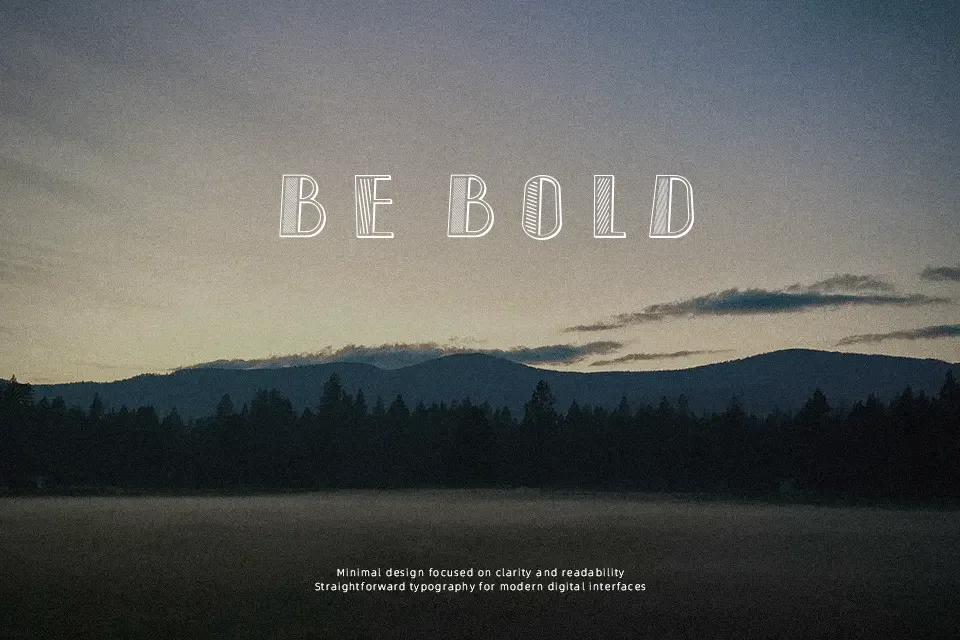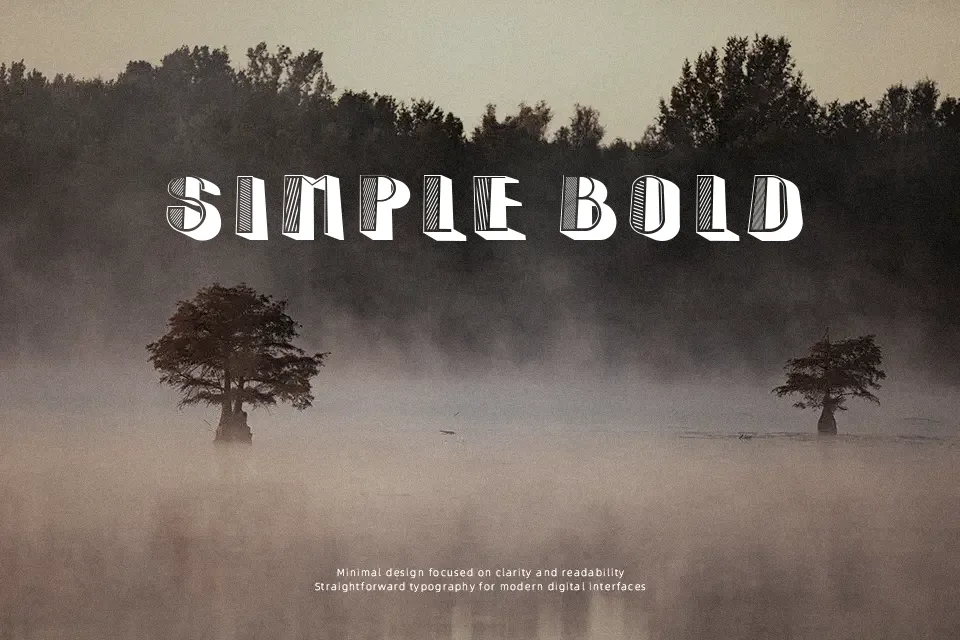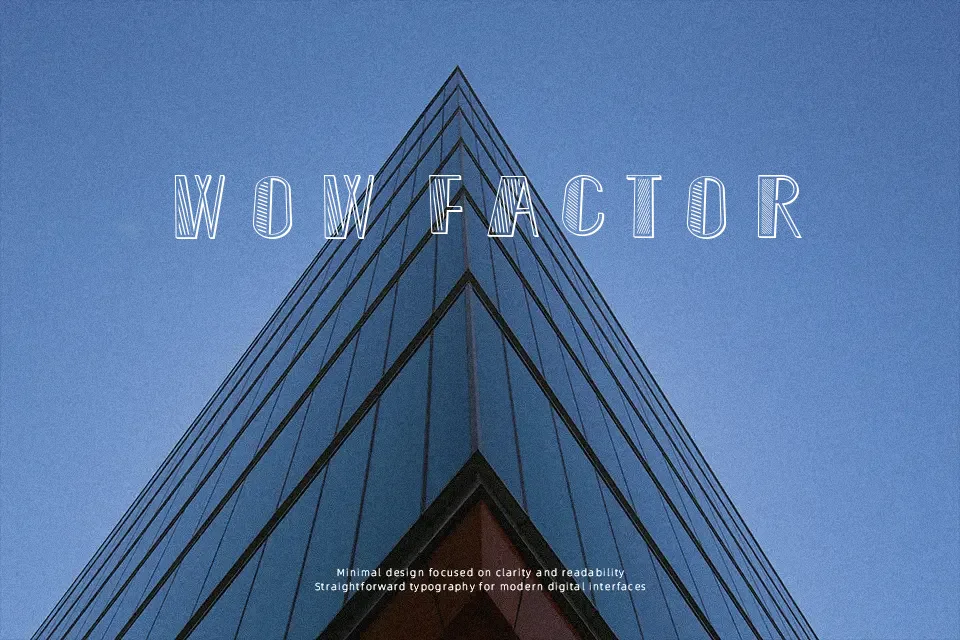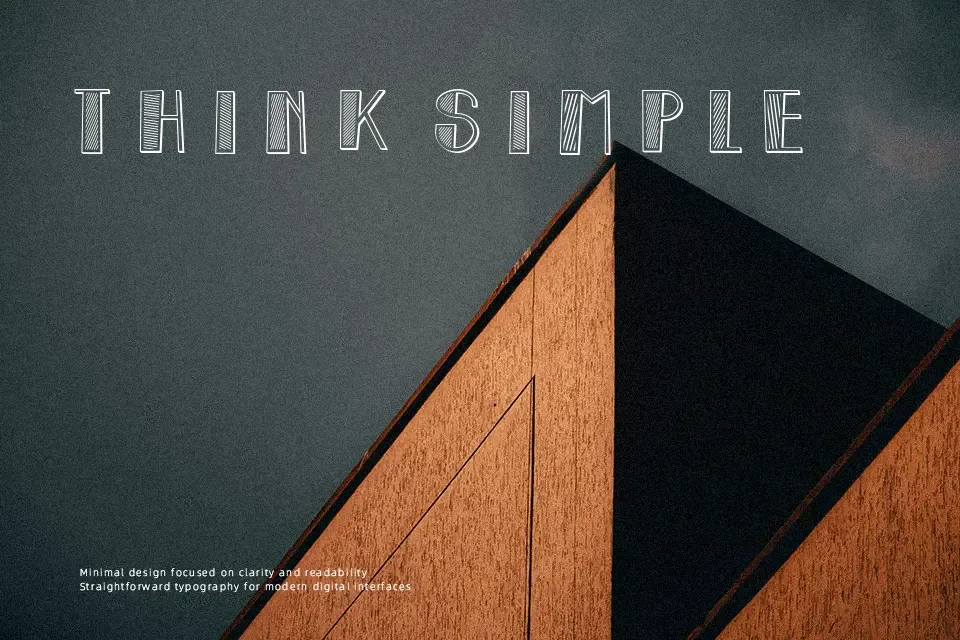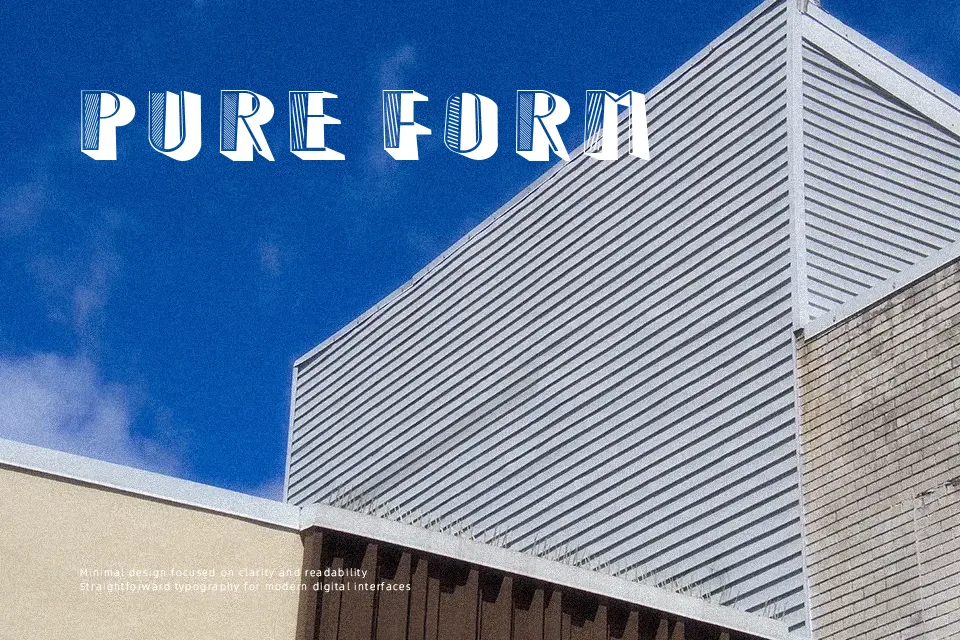
Baby Freedom Font
This font builds its personality around heavy, blocky letterforms with a subtle textured fill and a pronounced three-dimensional extrusion, giving each character a chunky, almost toy-like presence. The spacing is reasonably open for a display face, so short words and names remain legible even when tightly composed in logos or poster titles. Its overall feel lands between retro slab display and playful decorative lettering, working nicely for children’s event branding, themed party graphics, or bold header text on social media banners. However, the weight and 3D effect make it unsuitable for long text or small captions, and it can look overwhelming if overused in the same layout. In practice, it performs best when reserved for short, punchy phrases while simpler companions handle body copy.
kids party posters
playful logo wordmarks
event headlines for flyers
social media title graphics
tiny UI labels or captions
minimalist editorial layouts
Perfect for headline, kids, and logo, with a bold and decorative style.